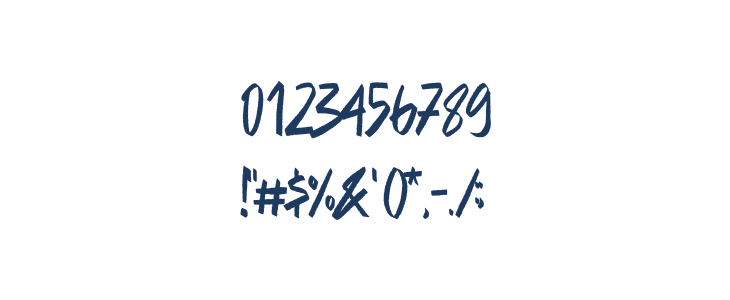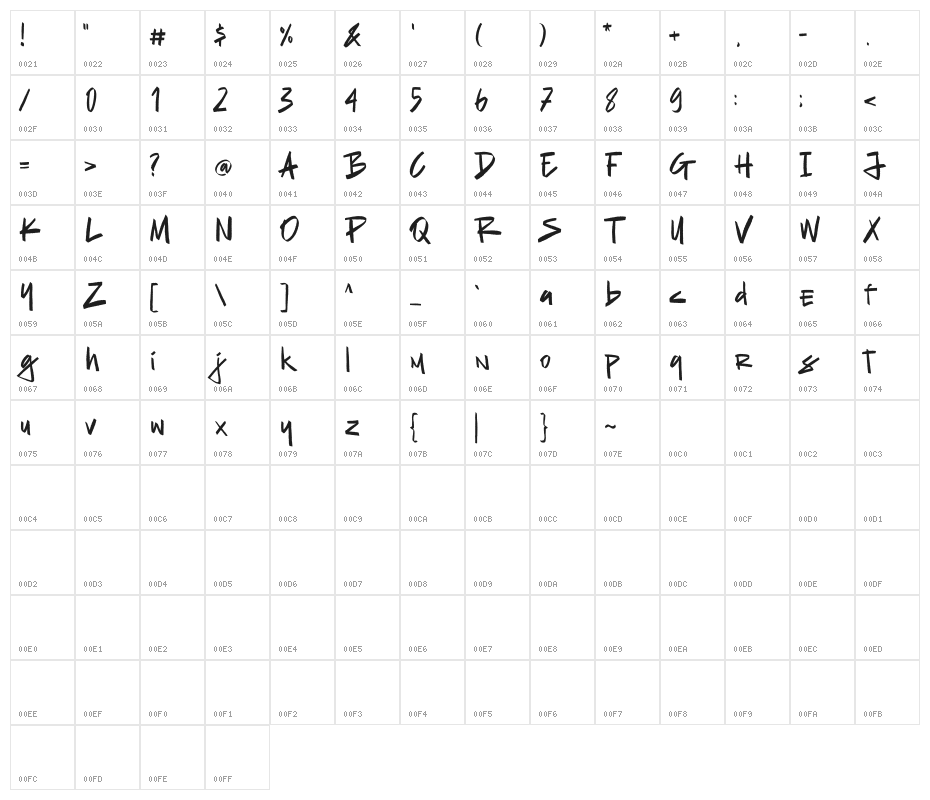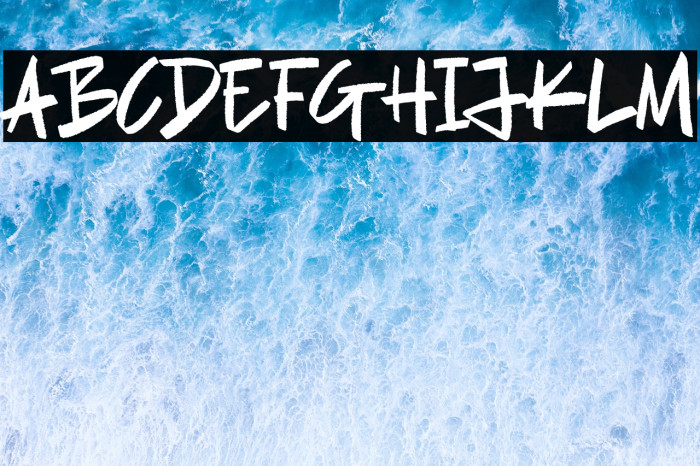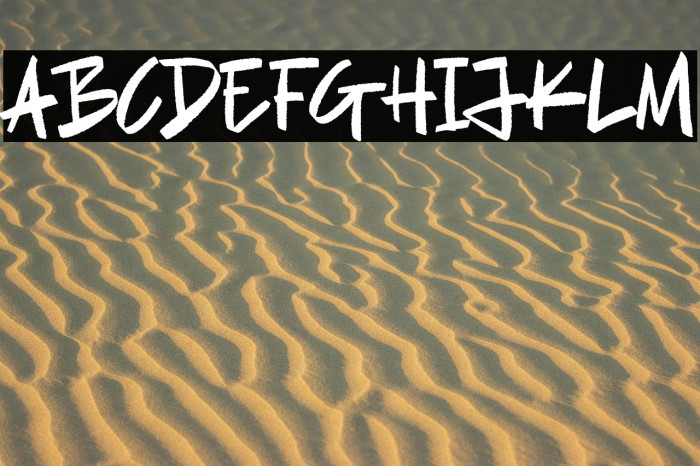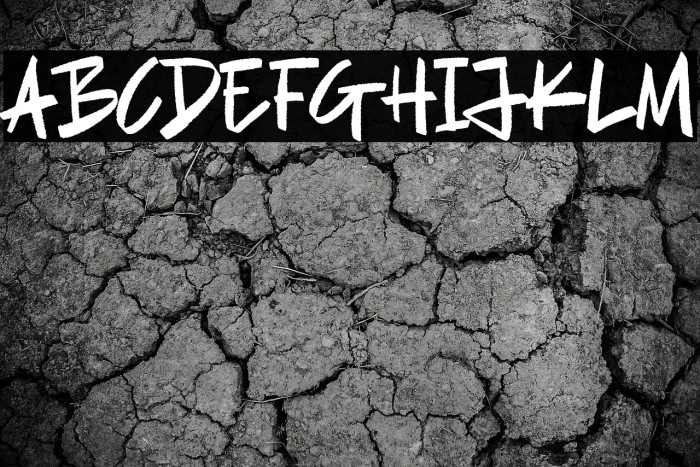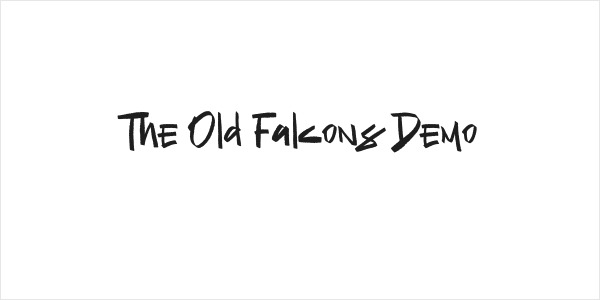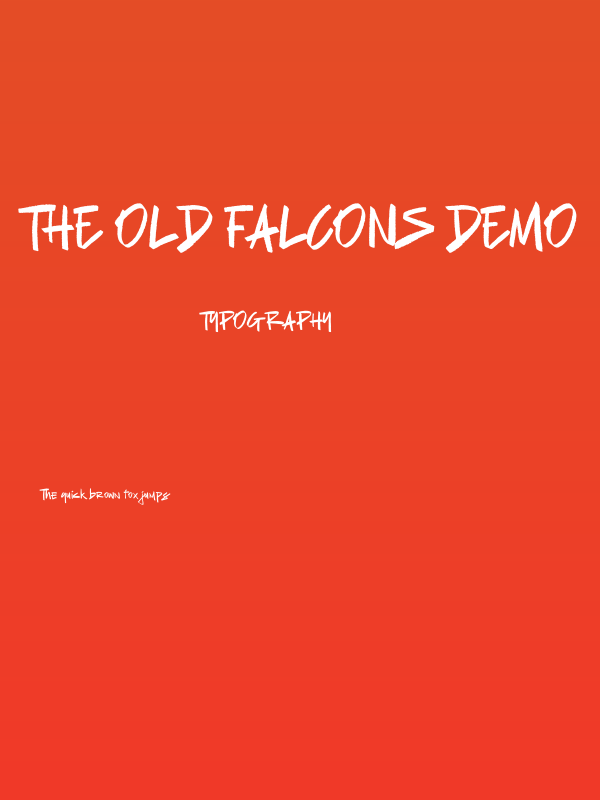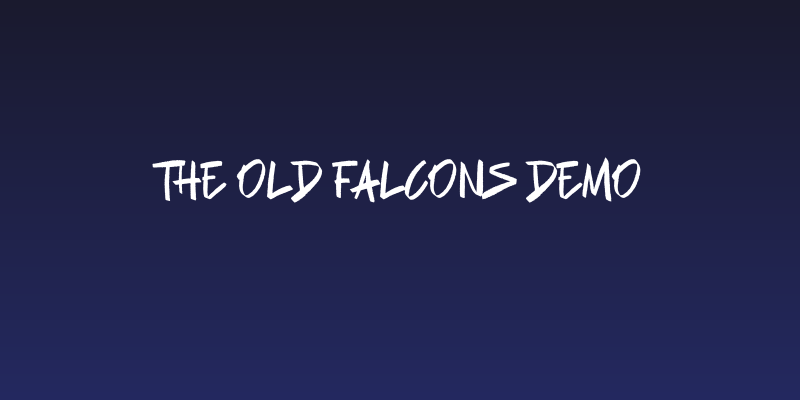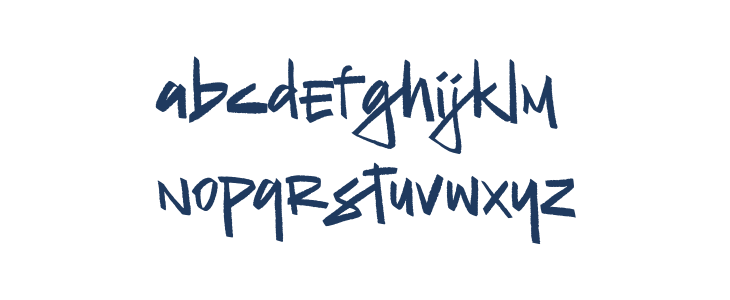
The Old Falcons Demo Font
The Old Falcons Demo Description
This font exudes a bold, energetic, and dynamic style, characterized by its handwritten, graffiti-like appearance. The letters are crafted with a sense of movement and spontaneity, featuring sharp angles and varying line thicknesses that add a sense of urgency and expressiveness. The uppercase and lowercase letters maintain a consistent style, while the numbers and special characters complement the overall aesthetic. This font is ideal for projects that require a touch of urban flair and creativity, making it perfect for street art-inspired designs, edgy branding, or vibrant posters.
| Proposed Projects | Street art designs, edgy branding, vibrant posters, creative advertisements. |